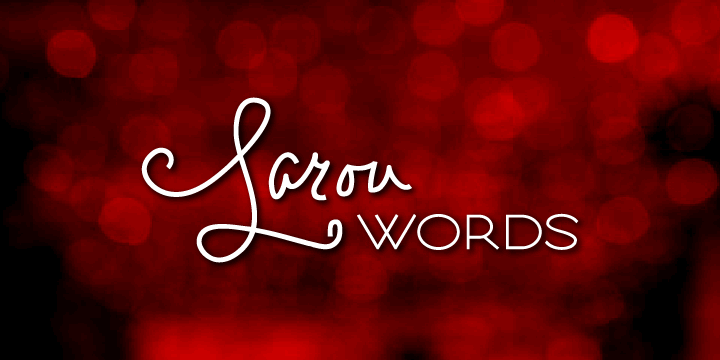
Download and enjoy this free larou words font. Cool typeface to showcase your designs in a modern way. Download this free typeface from the original source of Font Space. This is absolutely beautiful font so you can easily make world-class designs.